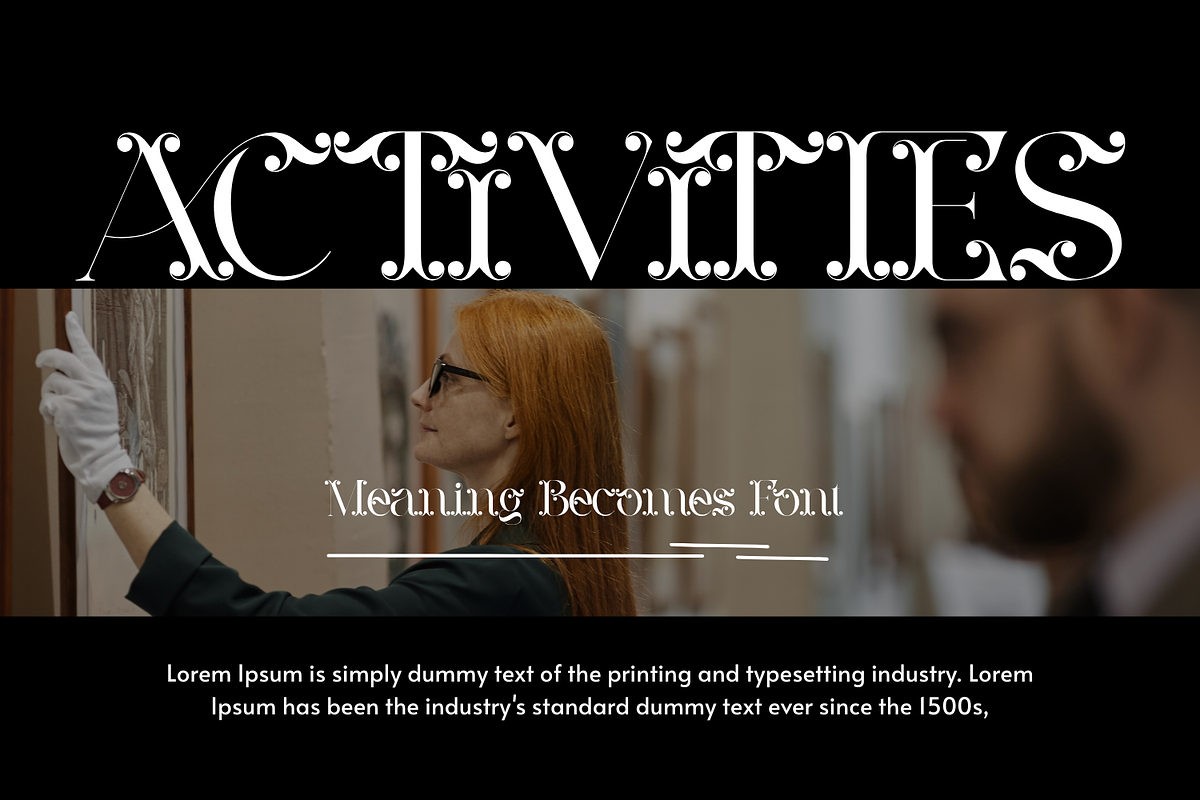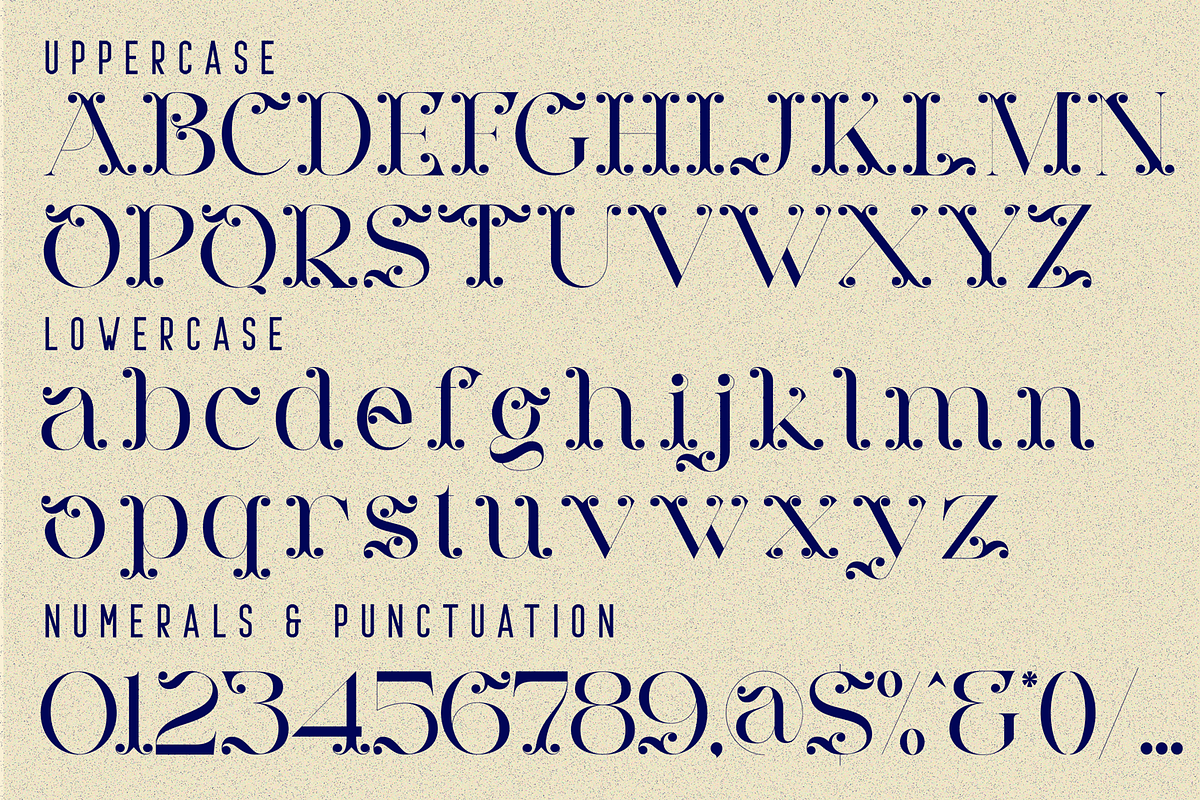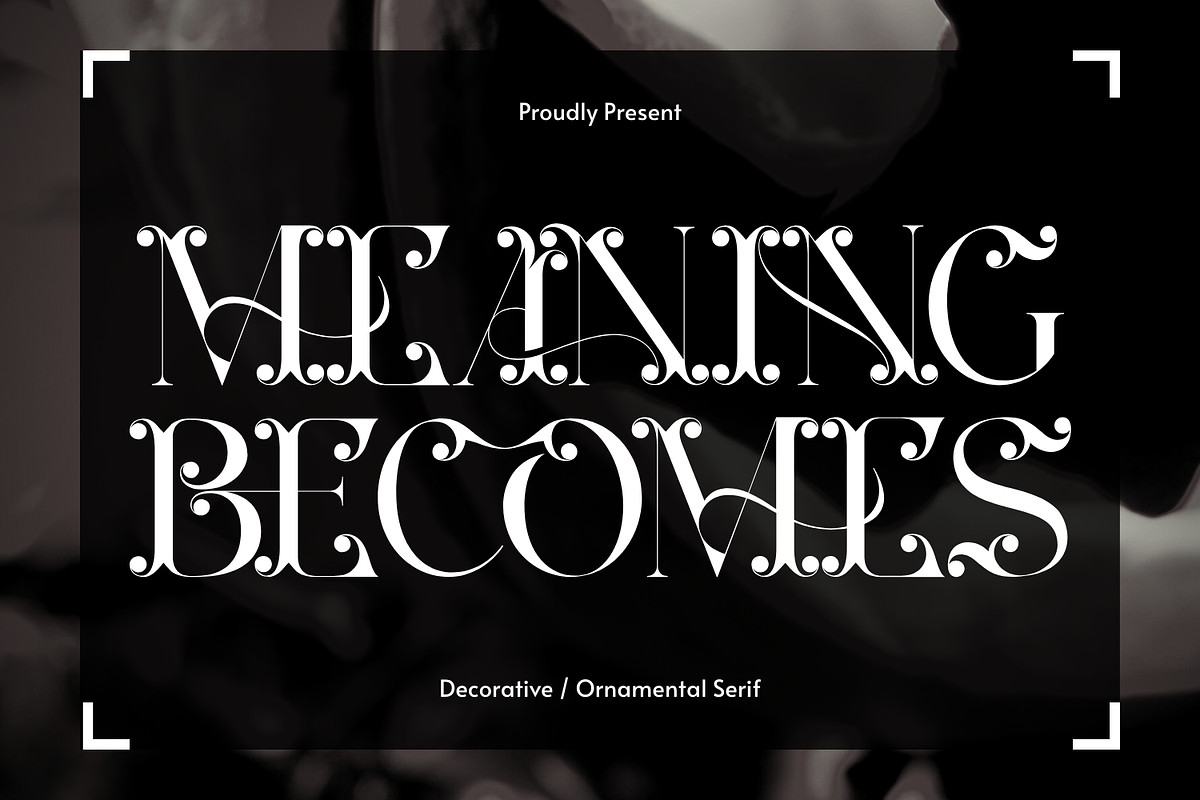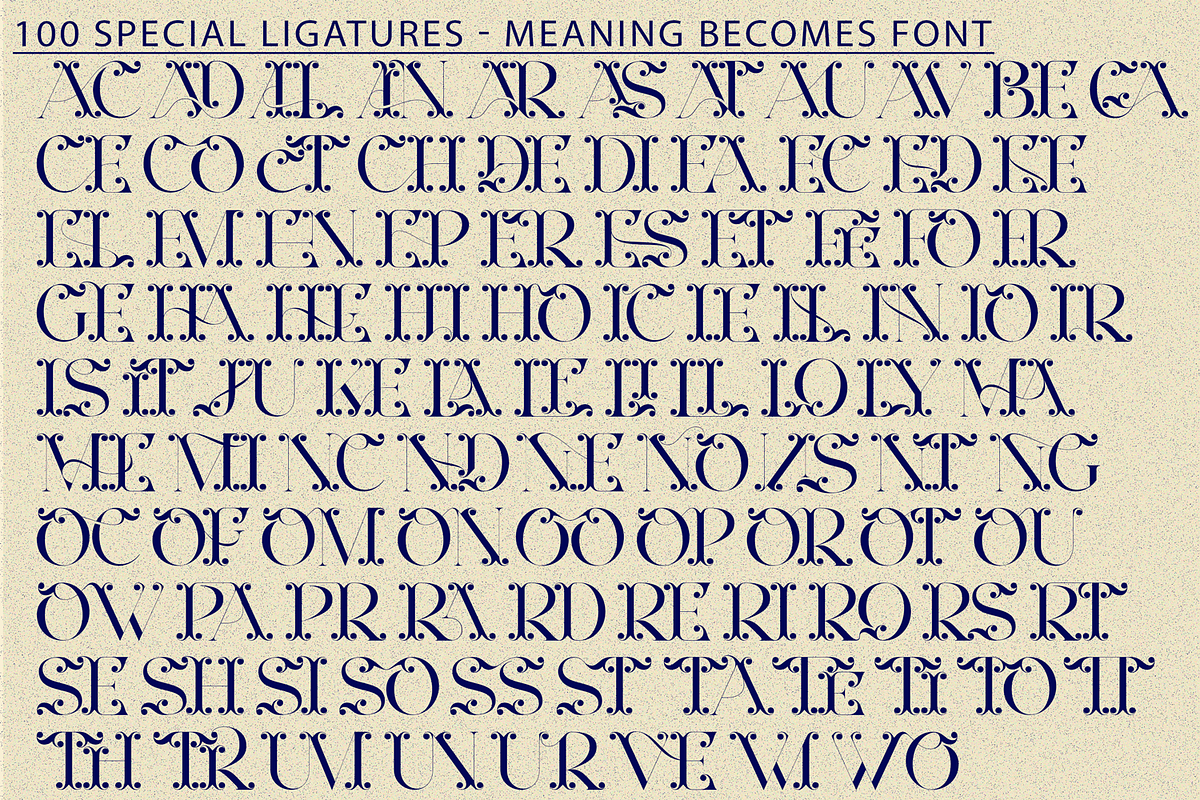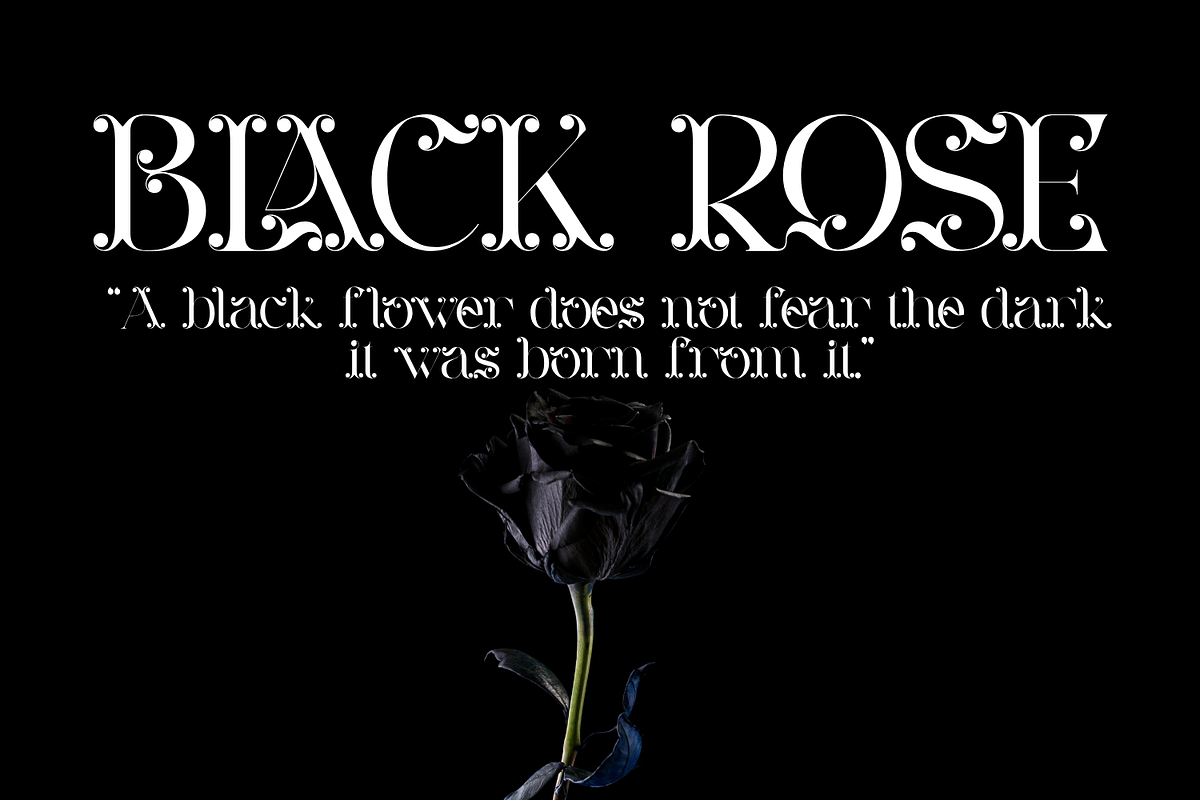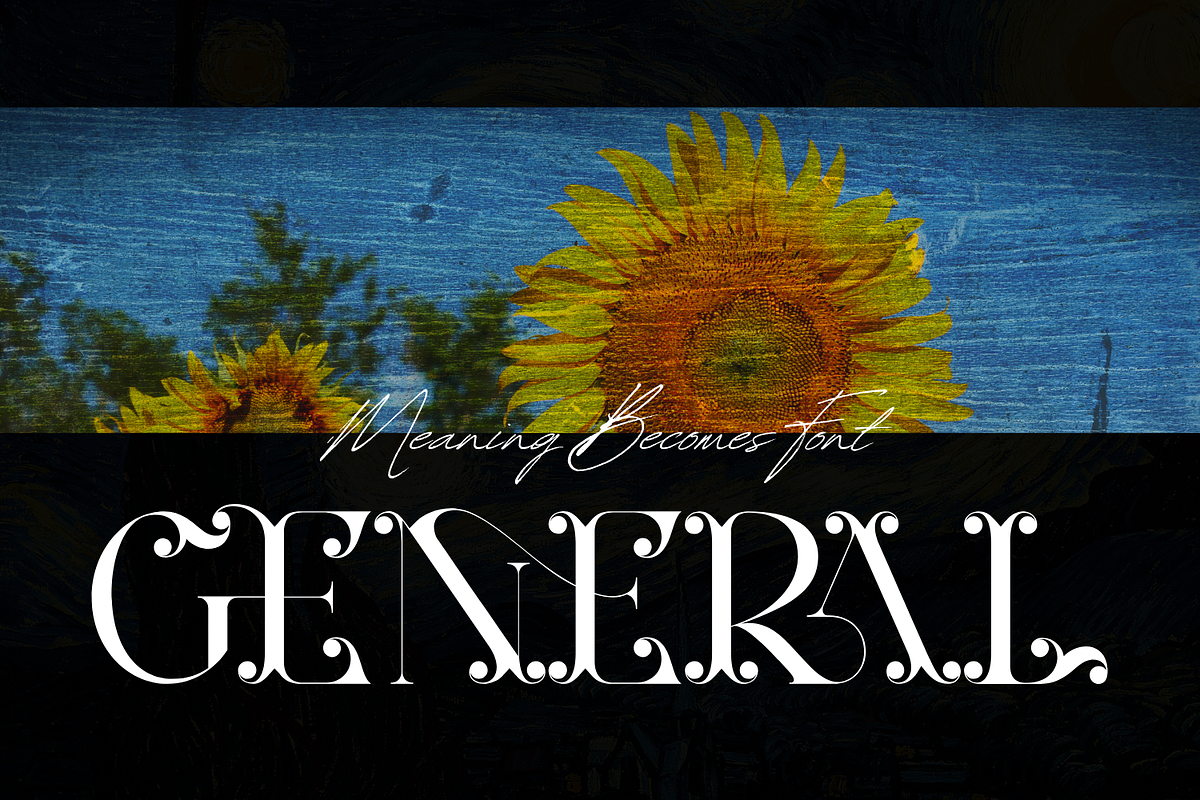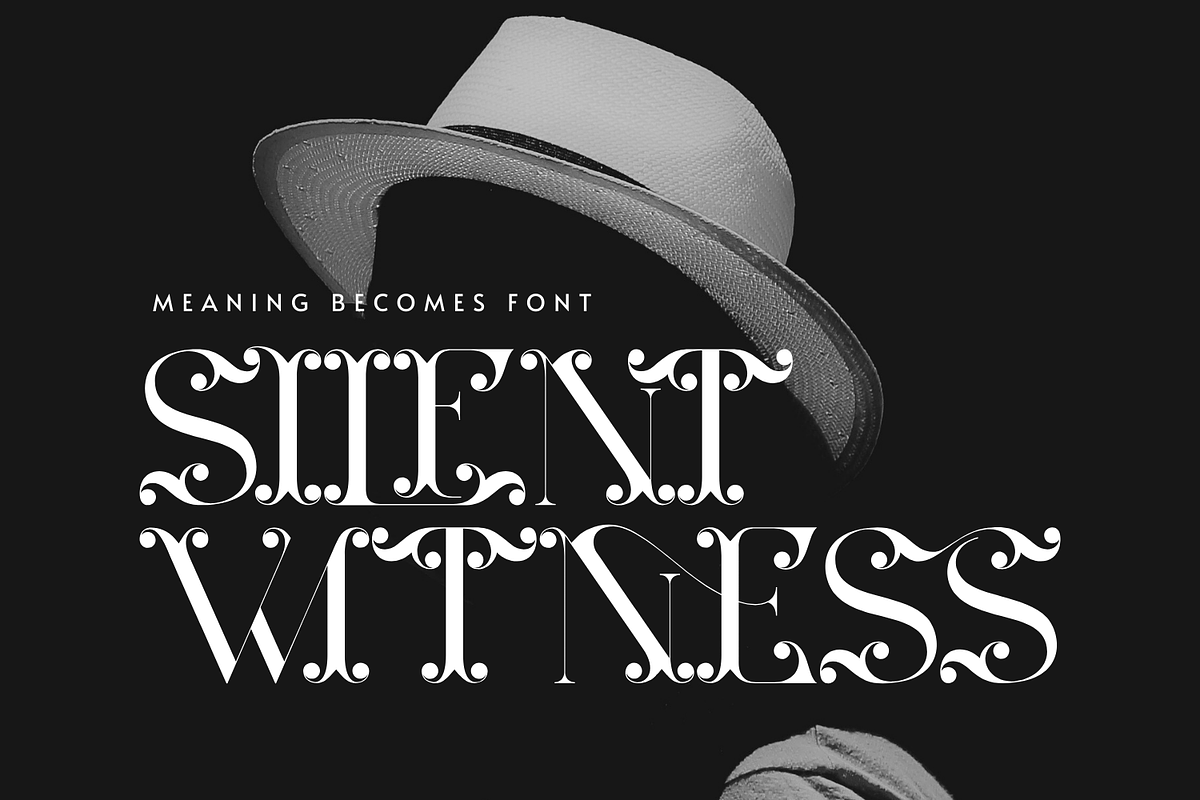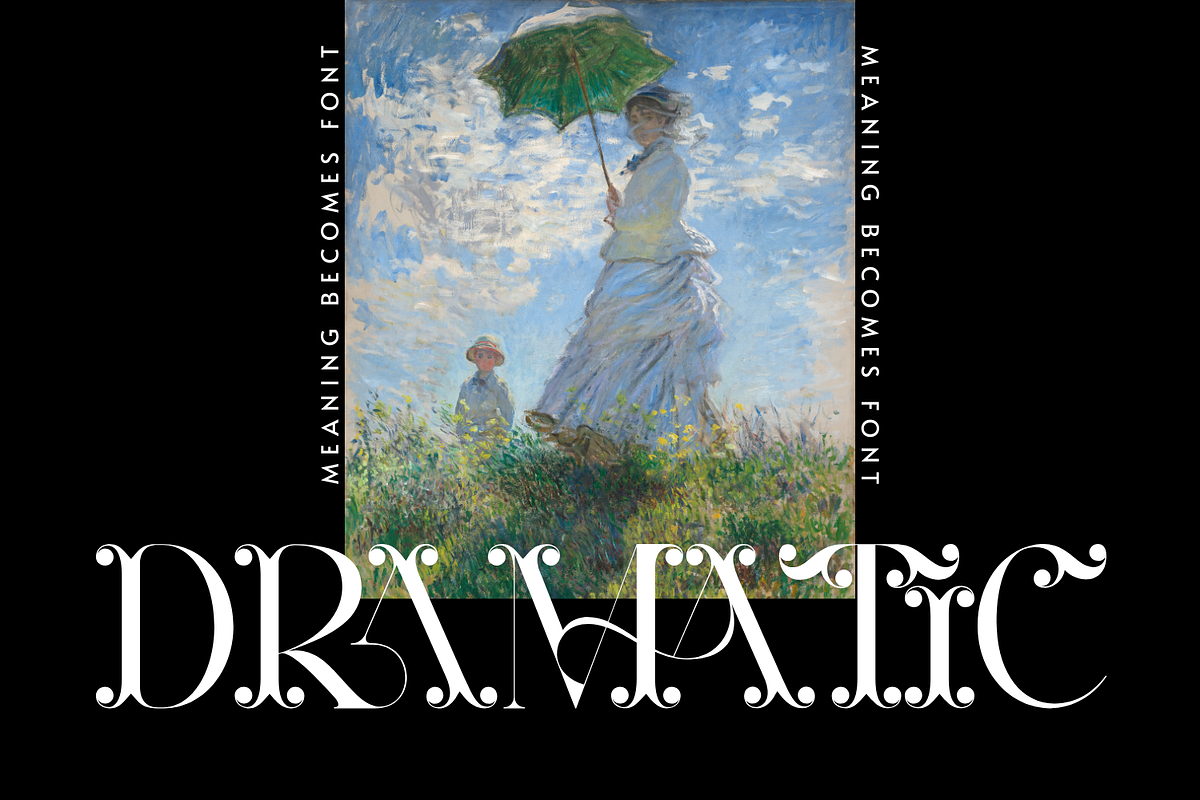
MEANING BECOMES - ELEGANT FONT
MEANING BECOMES - ELEGANT FONT is an elegant ornamental serif display typeface inspired by classic Didone typography and luxury editorial design. Featuring dramatic thick-to-thin contrast, graceful curves, and beautifully crafted decorative swashes, this typeface brings a sense of sophistication and artistic elegance to any design. The refined letterforms are enhanced with delicate ornamental details and flowing connections that create a distinctive visual rhythm. MEANING BECOMES is perfect for fashion branding, wedding invitations, perfume packaging, editorial headlines, and high-end logo design.
🔤Features:
- Uppercase & Lowercase Letters
- Around 100 Special Ligatures & Alternates
- Accented Characters for multilingual support
🔤About 100 ligatures combined with Stylistic Alternates Font:
AC AD AL AN AR AS AT AU AV BE CA CE CH CO CT DE DI EA EC ED EE EL EM EN EP ER ES ET FE FO FR GE HA HE HI HO IE IC IL IN IO IR IS IT JU KE LA LE LI LL LO LY MA ME MI NC ND NE NG NO NT NS OC OF OM ON OO OP OR OT OU OW PA PR RA RD RE RI RO RS RT SE SH SI SO SS ST TA TE TH TI TO TR TT UM UN UR VE WI WO